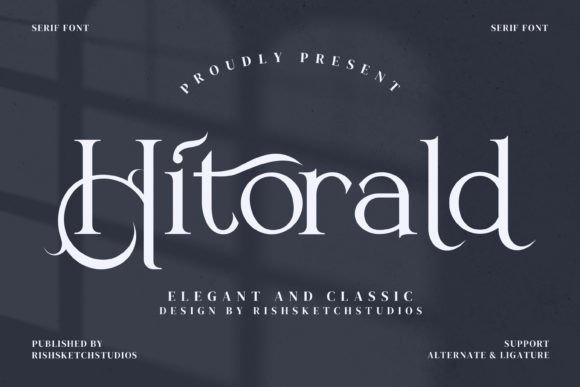
Unleash the Essence of Grandeur with Hitorald: The Epitome of Luxury and Sophistication
In a world saturated with mundane typography, allow Hitorald, the majestic serif font, to transport you to a realm of unparalleled elegance and refinement. Crafted by the visionary minds at mahstudios, this deluxe font exudes an aura of luxury that will elevate your designs to new heights of sophistication.
With its meticulously drawn lines and graceful curves, Hitorald embodies the essence of timeless beauty. Each character is a testament to the font's dedication to excellence, evoking a sense of heritage and prestige. Whether you're crafting high-end branding materials, designing captivating packaging, or creating editorial masterpieces, Hitorald will effortlessly elevate your projects with its regal presence.
As a PUA-encoded font, Hitorald grants you the freedom to access its entire repertoire of glyphs and swashes, empowering you to unleash your creativity without limits. Experiment with captivating ligatures, stylish alternates, and enchanting ornaments to infuse your designs with a touch of exclusivity.
Hitorald's versatility extends beyond its aesthetic appeal. Its inherent functionality ensures seamless integration with a wide range of design software, making it an indispensable tool for designers of all skill levels. Whether you're a seasoned professional or just starting your creative journey, Hitorald's user-friendly nature will empower you to achieve stunning results with minimal effort.
Indulge in the grandeur of Hitorald and witness the transformation of your designs. Its timeless beauty, luxurious aura, and unparalleled functionality combine to create a font that is both captivating and versatile. Embrace the legacy of elegance and sophistication, and let Hitorald elevate your projects to the realm of the extraordinary.